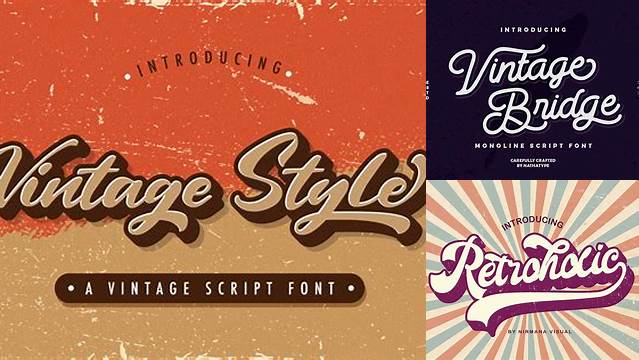
Free Retro Cursive Fonts: Download Now!
Hey guys! Are you looking to add a touch of vintage charm to your designs? Well, you've come to the right place! In this article, we're diving deep into the world of free retro cursive fonts. These fonts are perfect for giving your projects that cool, classic vibe. We'll explore everything from where to find them to how to use them effectively. So, buckle up and let's get started!
1. What are Retro Cursive Fonts?
Okay, so what exactly are retro cursive fonts? Simply put, they're fonts that mimic the handwriting styles popular in past decades, especially the mid-20th century. Think of the elegant script used in vintage advertisements, the playful lettering on old posters, or the stylish signatures in classic movies. These fonts often have a flowing, connected script with a touch of flair, making them ideal for adding a nostalgic feel to your designs.
Retro cursive fonts come in various styles, from smooth and elegant to bold and playful. They often feature swashes, loops, and other decorative elements that give them a unique, handwritten look. This makes them perfect for projects where you want to convey a sense of authenticity, history, or nostalgia. Whether you're designing a logo for a vintage-inspired brand, creating invitations for a retro-themed party, or simply want to add a bit of personality to your text, retro cursive fonts can be a fantastic choice. They can evoke memories, create a specific mood, and set your design apart from the crowd. Plus, using a free retro cursive font means you can achieve this classic look without breaking the bank! So, keep reading to find out where you can snag some awesome free fonts and how to make the most of them.
2. The Appeal of Vintage Typography
There’s just something undeniably cool about vintage typography. It carries a certain charm and character that modern fonts sometimes lack. The appeal of vintage typography lies in its ability to evoke a sense of nostalgia, transporting us back to different eras with their distinct styles and aesthetics. Think of the bold, Art Deco lettering of the 1920s, the playful script fonts of the 1950s, or the groovy, psychedelic typefaces of the 1970s. Each era has its own unique typographic identity, and vintage fonts allow us to tap into these styles.
Vintage typography can add a layer of authenticity and personality to your designs. In a world dominated by clean, minimalist fonts, using a vintage typeface can make your work stand out and grab attention. These fonts often have imperfections and quirks that give them a human touch, making them feel more personal and relatable. This is especially valuable in branding, where you want to create a unique identity that resonates with your target audience. The connection to the past that vintage typography provides can also evoke emotional responses, making your designs more memorable and impactful. Whether you're designing a logo, creating a poster, or working on a website, incorporating vintage typography can add a touch of timeless elegance and sophistication. It’s all about capturing the essence of a bygone era and bringing it into the present.
Behance and Dribbble: These are platforms where designers showcase their work, and sometimes they offer free resources, including fonts. Use the search function to look for free retro cursive fonts.
Remember to always double-check the license before using any font in your projects. Free fonts often come with different licensing terms, so it’s important to make sure you’re allowed to use them for your specific purpose. With a little bit of searching, you’ll find plenty of fantastic free retro cursive fonts to bring your designs to life!
4. Top Websites for Free Font Downloads
Let's dive a bit deeper into some of the top websites where you can find those amazing free retro cursive fonts. Knowing the best resources will save you time and ensure you’re getting high-quality typefaces. Here’s a breakdown of some of the most popular sites:
DaFont: As mentioned earlier, DaFont is a go-to for many designers. It has a massive library of fonts, categorized by style, theme, and more. You can easily browse the cursive or retro sections to find the perfect font for your project. The search functionality is straightforward, and the preview feature allows you to see how your text will look in each font before downloading. Plus, many fonts come with creator comments and user ratings, giving you extra insight into the font's quality and usability. This feedback helps you make informed decisions, ensuring the font will perform well in your designs. DaFont is a valuable resource for any designer looking to add some vintage flair to their work, offering a blend of variety, ease of use, and community support.
17. The History of Cursive Writing
To truly appreciate retro cursive fonts, it's helpful to understand the history of cursive writing itself. Cursive, derived from the Latin word